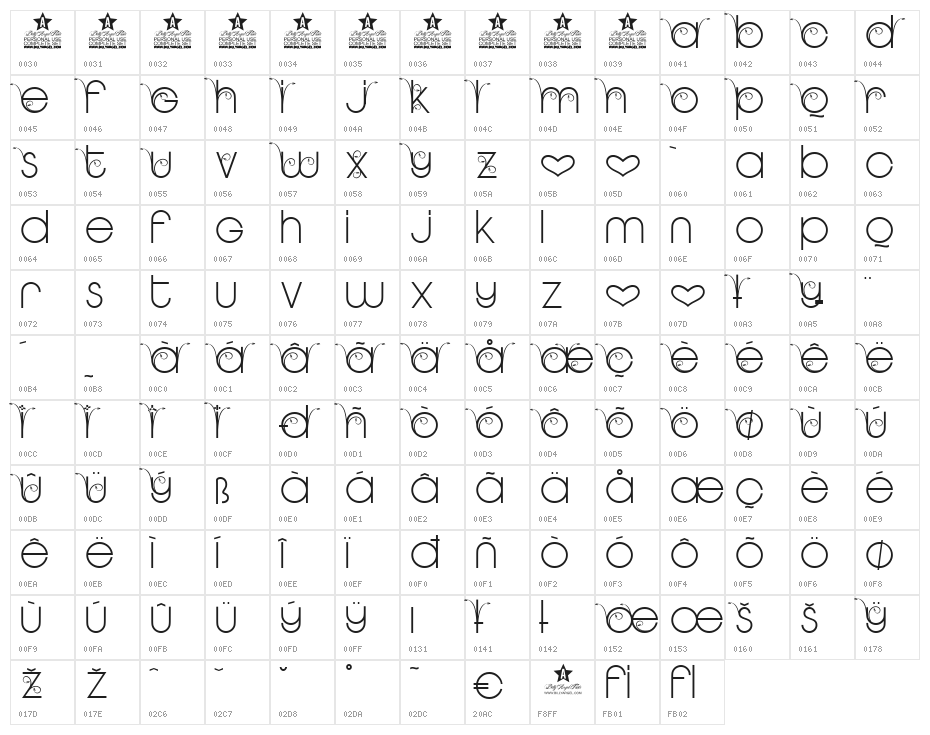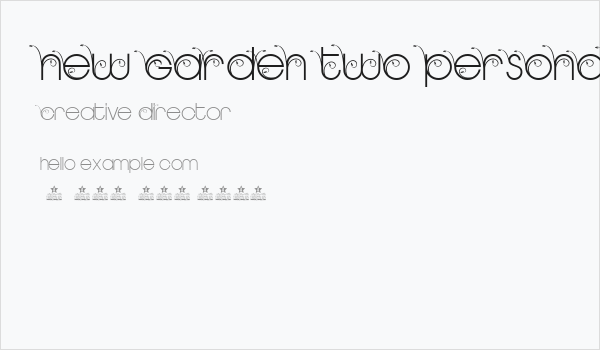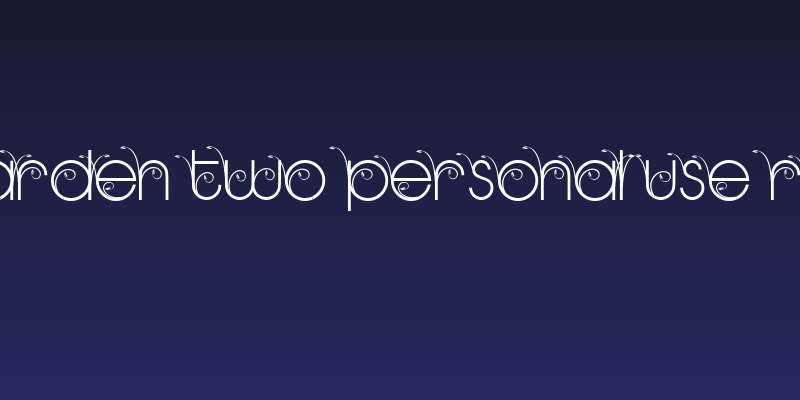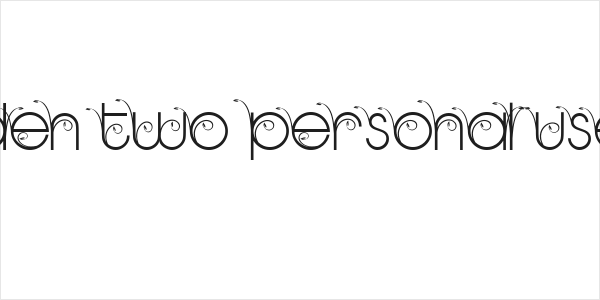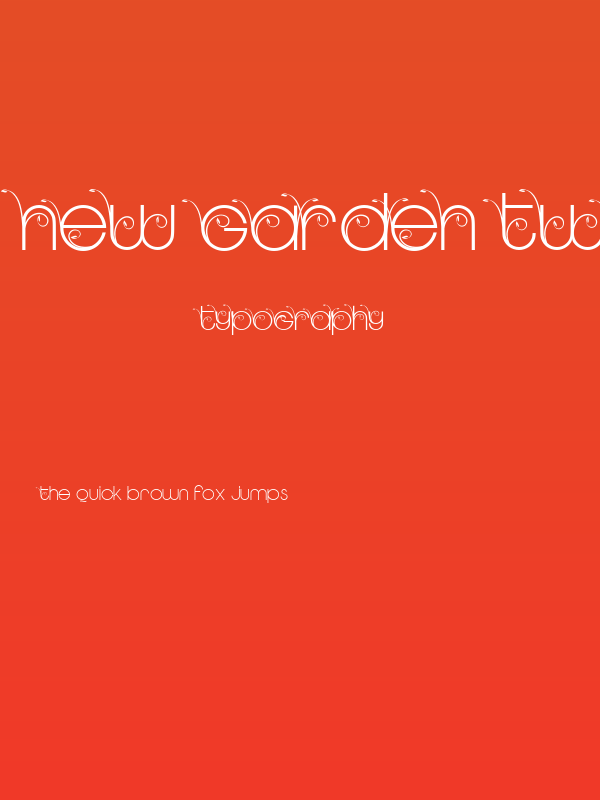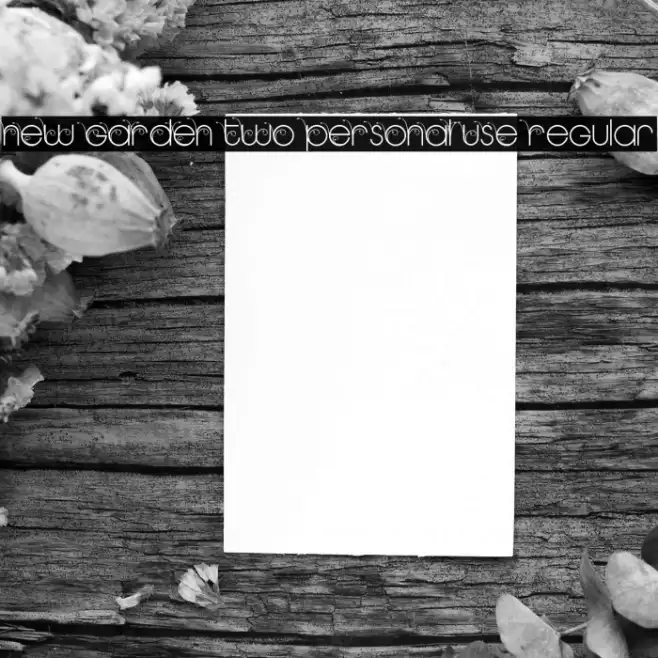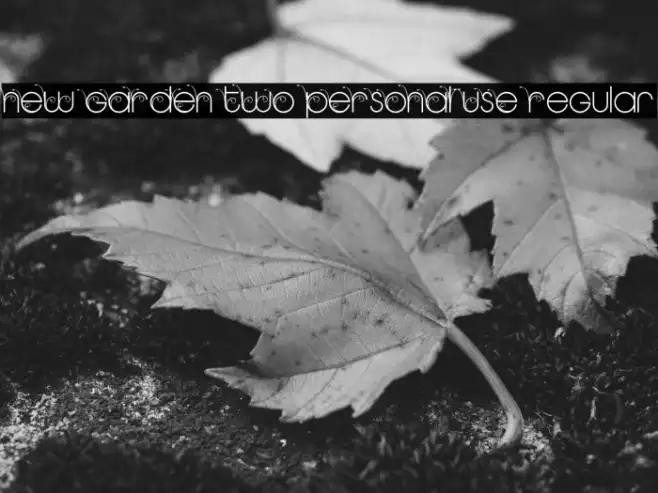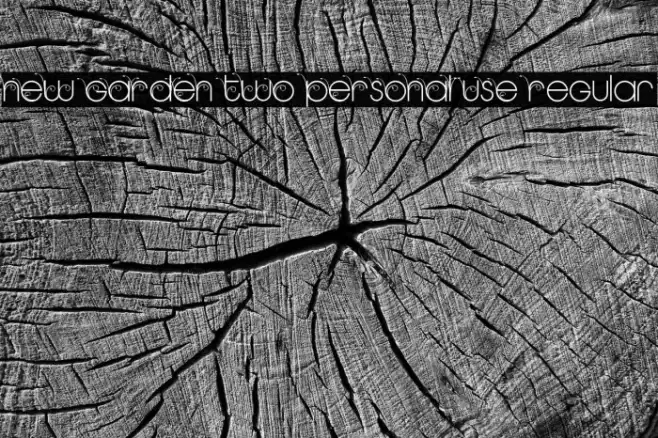
NEW GARDEN TWO PERSONAL USE Regular Font
NEW GARDEN TWO PERSONAL USE Regular Description
This font features a unique blend of decorative and modern elements, characterized by its elegant swirls and flourishes that extend from the main strokes of the letters. The uppercase and lowercase letters maintain a consistent height, providing a harmonious and balanced appearance. The font's design is both playful and sophisticated, making it suitable for creative projects that require a touch of elegance. The clean lines and subtle embellishments give it a distinctive look, perfect for making a statement in design work.